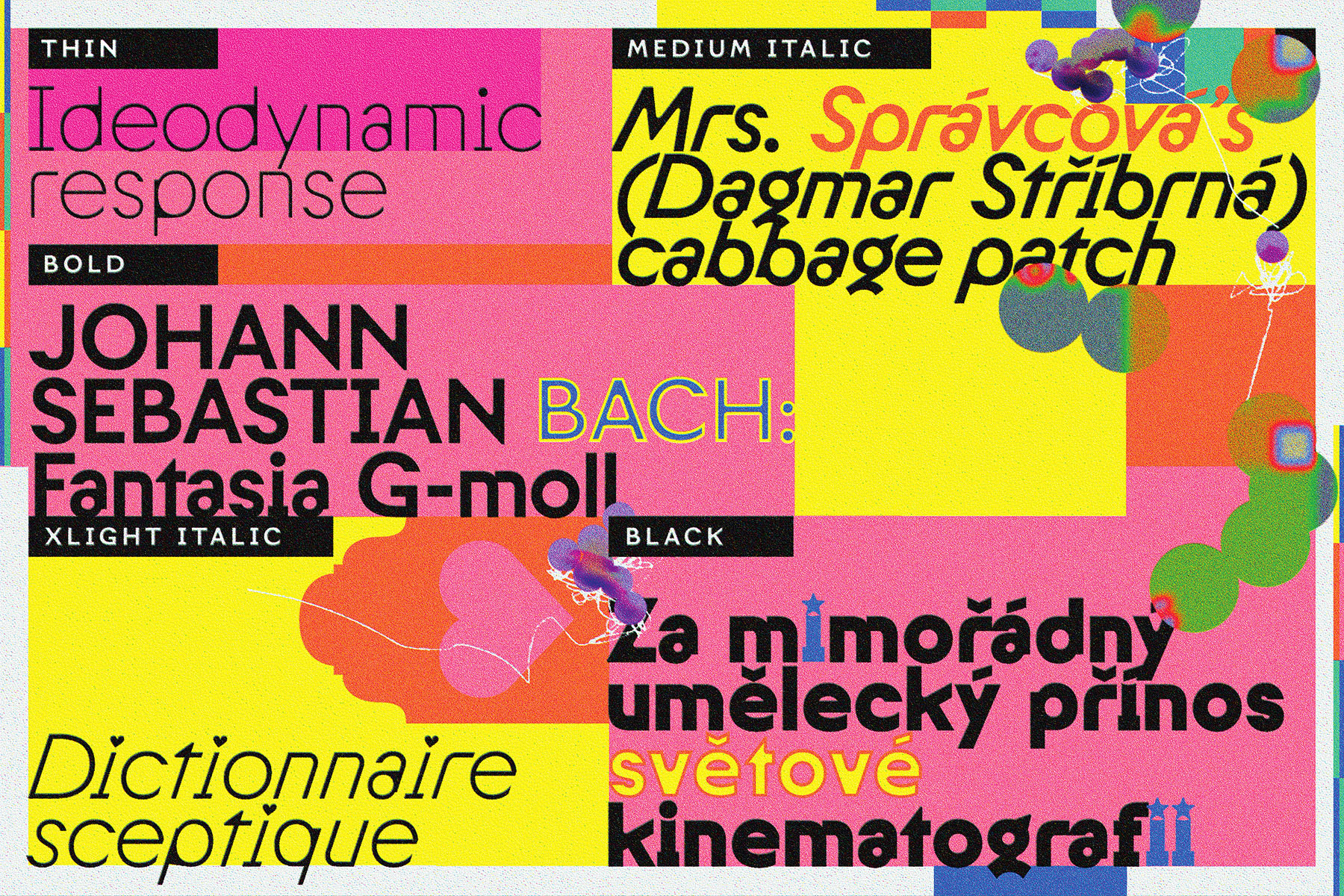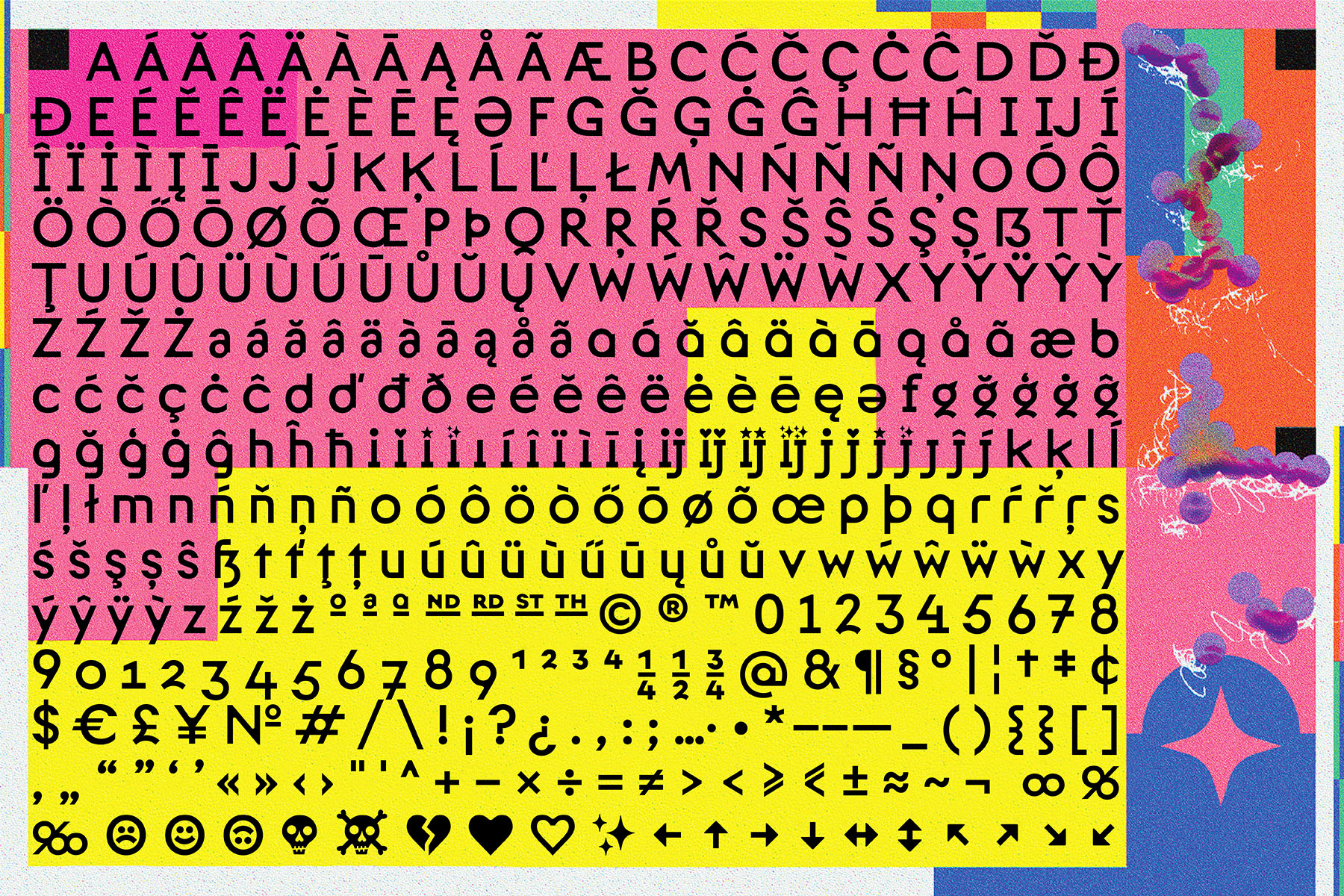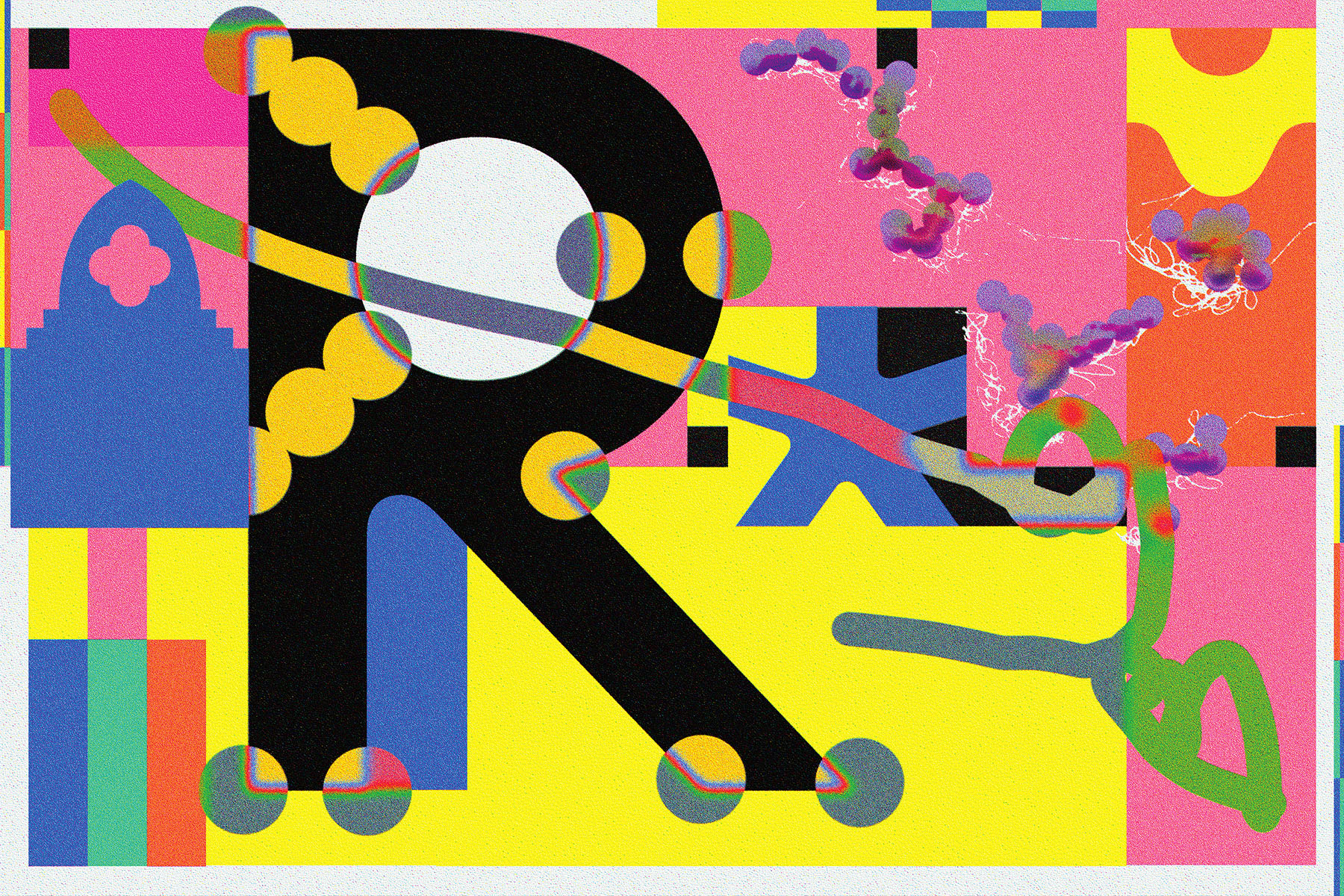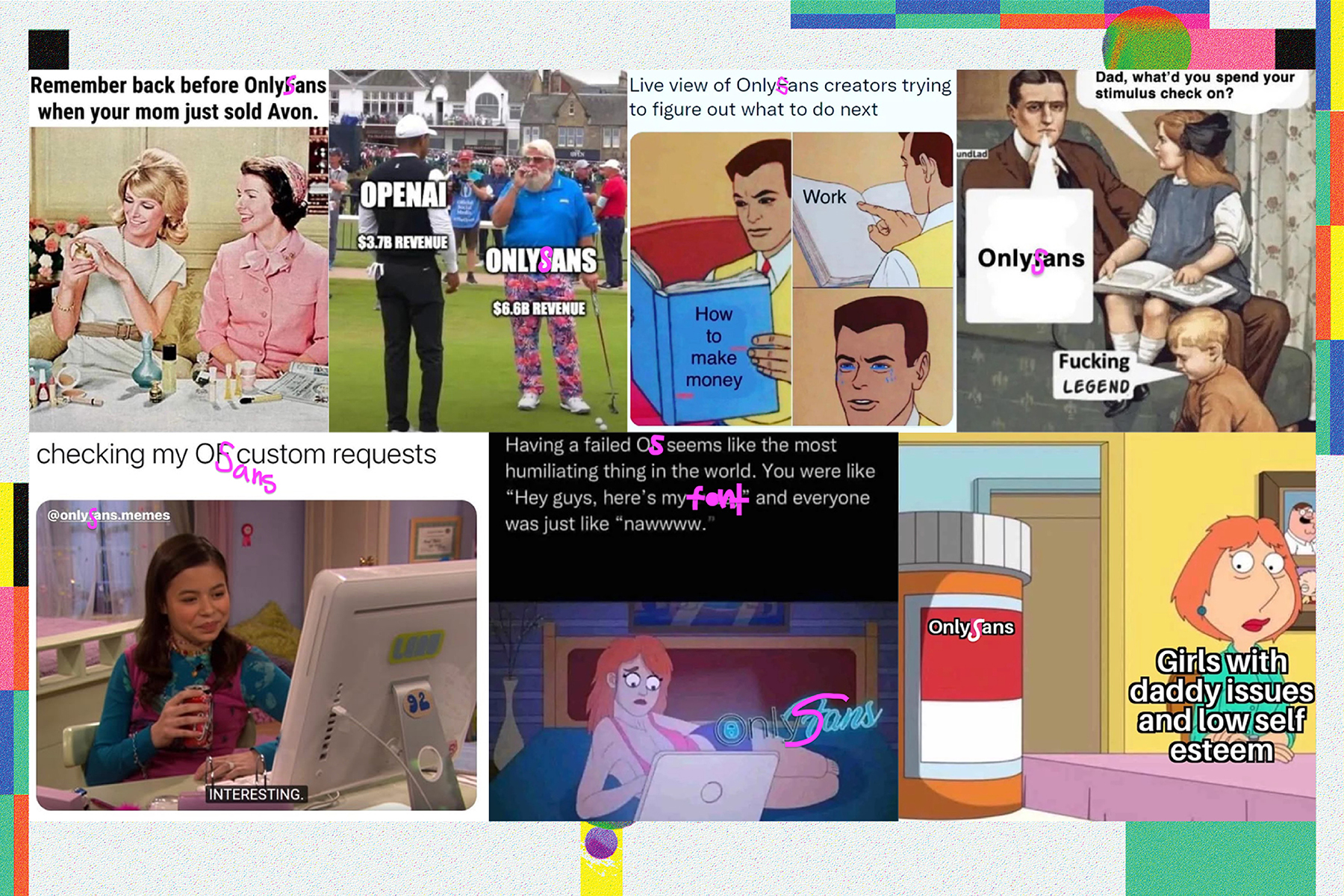
Onlysans is a postgeometric sans. It maintains the appearance of rationality, yet harbors strange mischievous details. It is duplexed, meaning the letters occupy the same space regardless of their weight, a futile attempt at stability in a world that offers none.